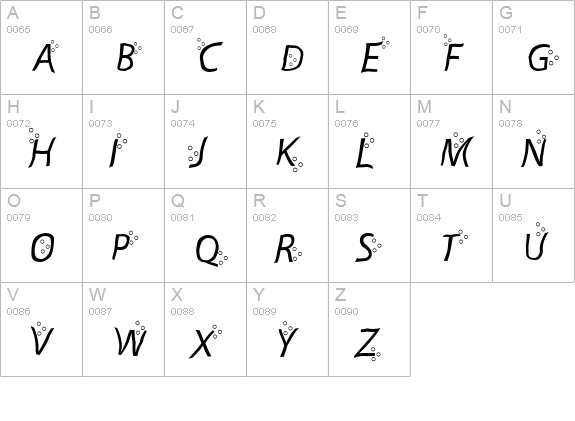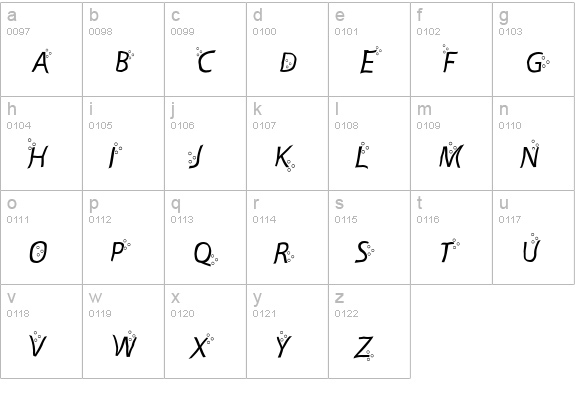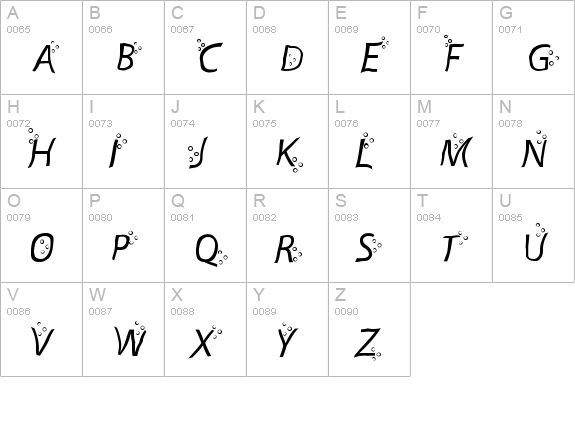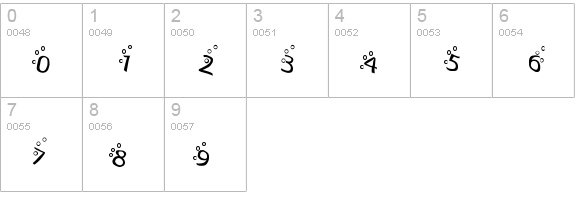
Fart Bubble Font Details
Introducing Fart Bubble font, a whimsical and playful typeface that is sure to bring a touch of humor to your projects. This fun and quirky font features bubbly letterforms that exude a lighthearted and carefree vibe. Perfect for adding a unique and comical touch to your designs, Fart Bubble font is a great choice for anything from greeting cards to children's books. What's even better is that Fart Bubble font is available for free download at FontsMarket.com! Yes, you read that right - this delightful font can be yours at no cost, making it a fantastic addition to your font collection without breaking the bank. So go ahead and add a touch of whimsy to your creative projects with Fart Bubble font - your audience will surely appreciate the playful charm it brings!